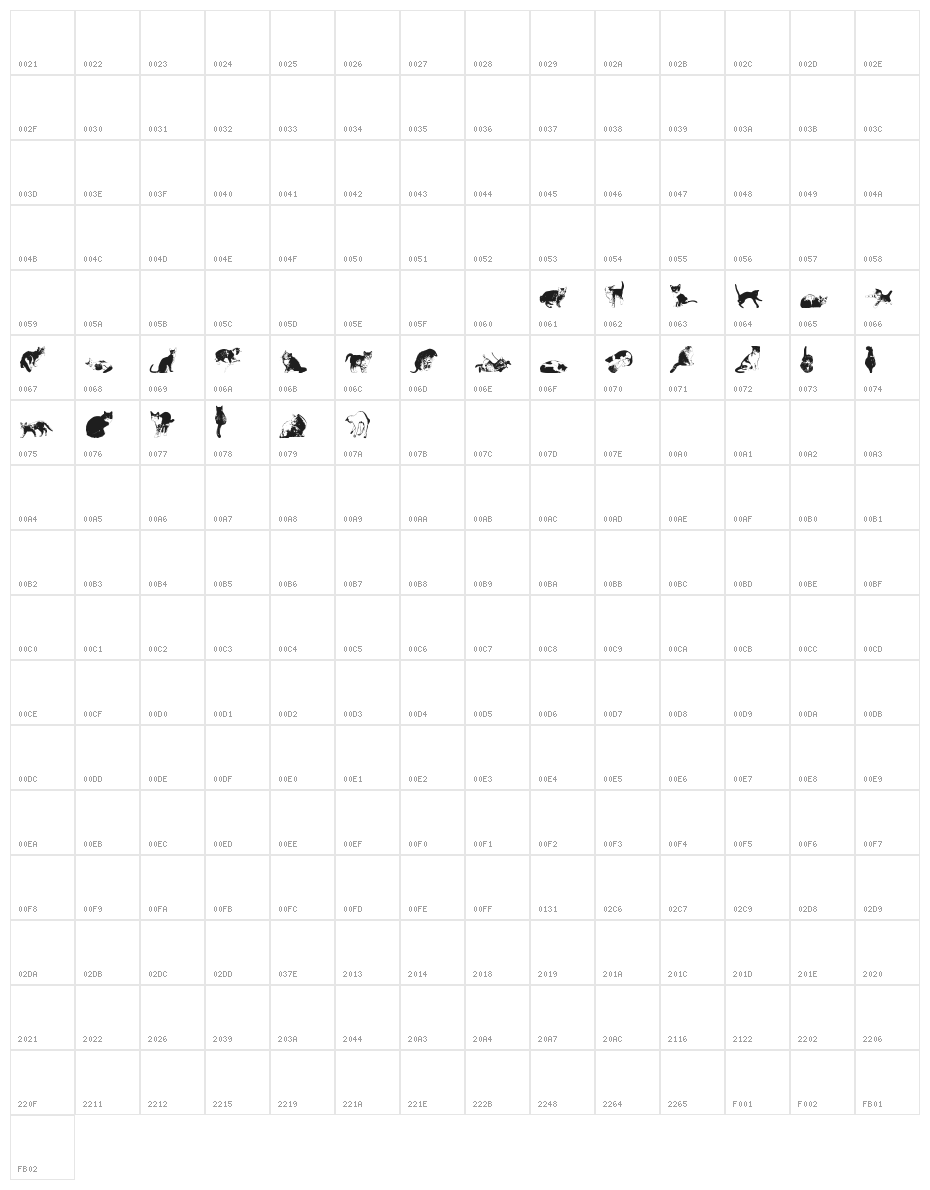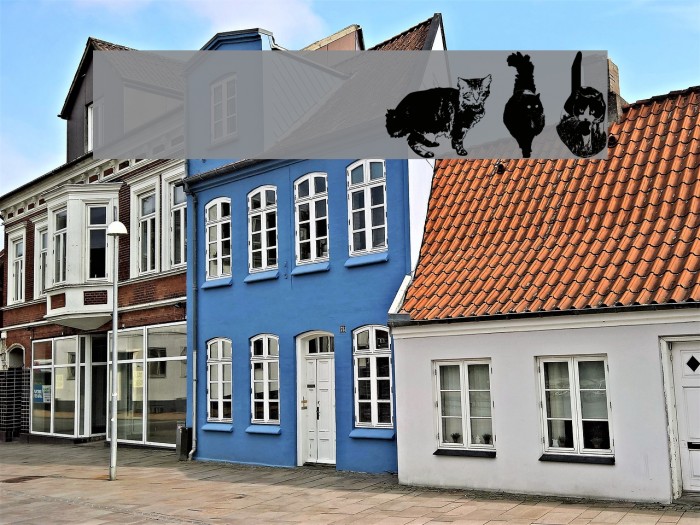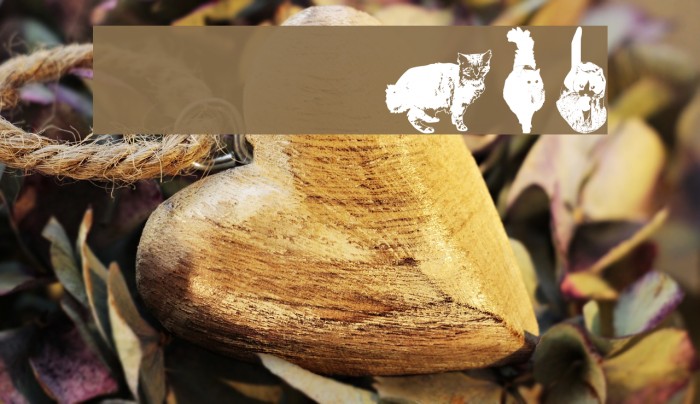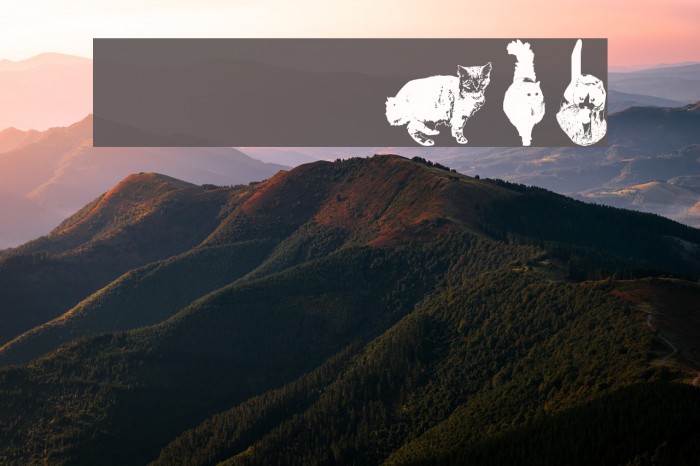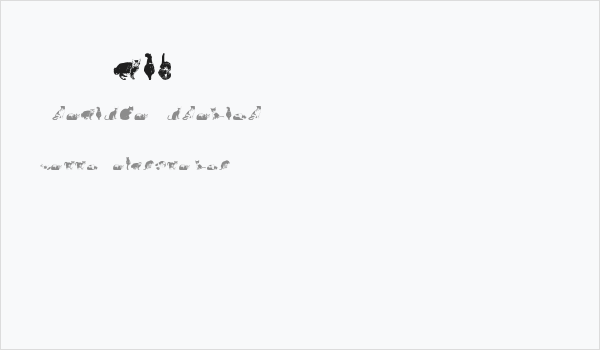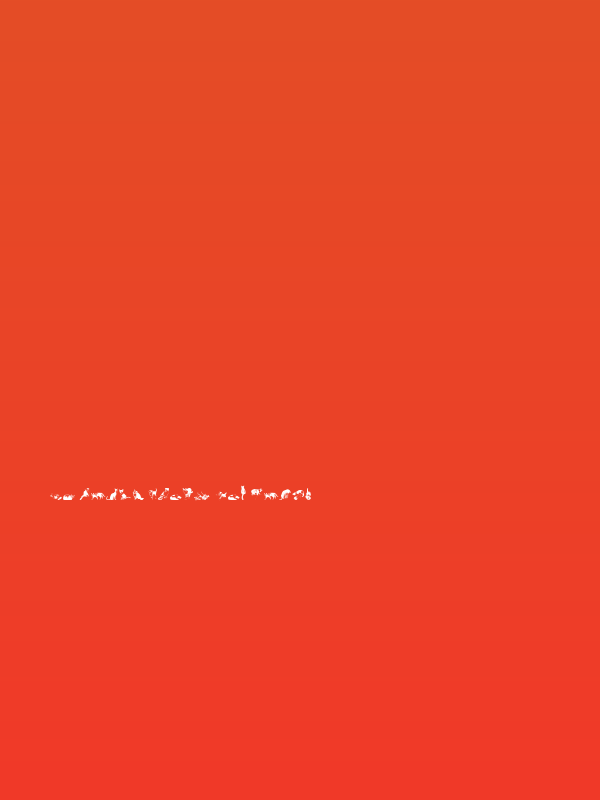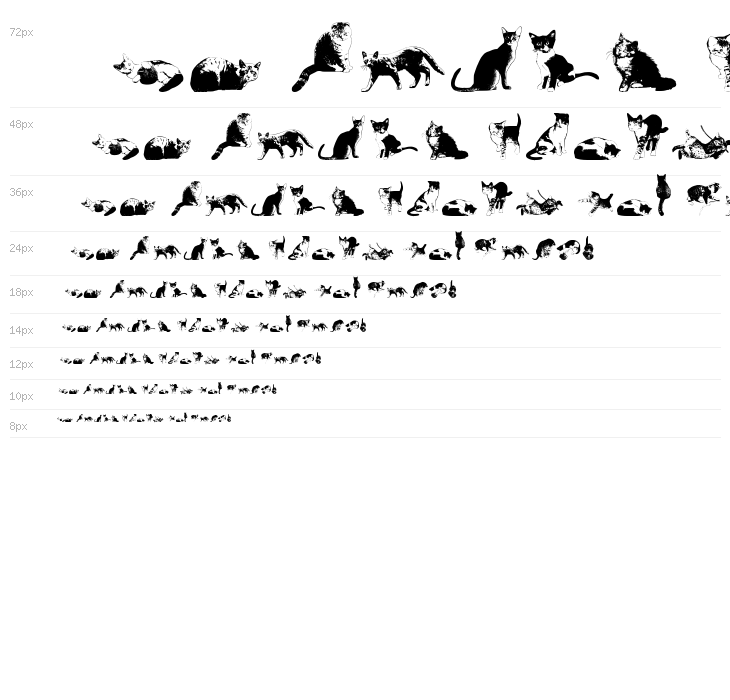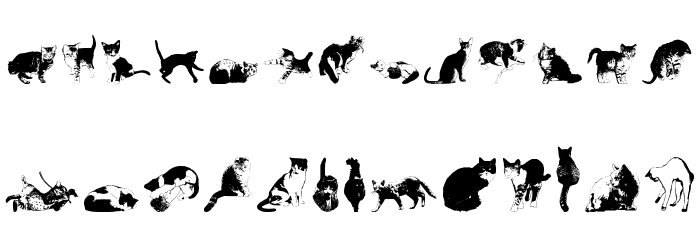
DJ Cats Font
DJ Cats Description
A playful decorative font where each character is represented by a unique silhouette of a cat in various poses, using high-contrast black and white imagery for each glyph.
| Overall Style | Decorative, Playful, Whimsical |
| Use Case | Headlines, Logos, Posters, Themed graphics |
| Proposed Projects | Pet-themed posters, children's book titles, playful branding, event invitations, novelty merchandise. |